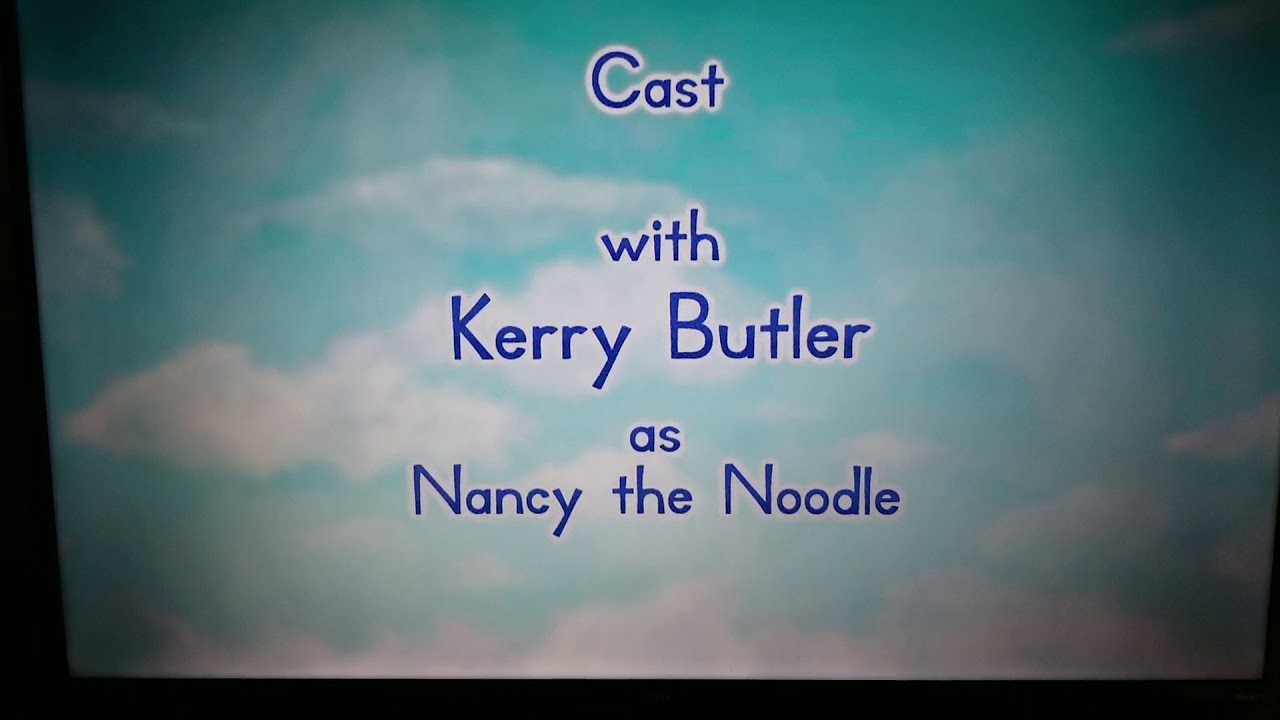
This image is the end credits of the Nick Jr. show, Wallykazam!. I want to know the name of this typeface, and not just download it, but I want to know, is this typeface custom or not? It looks a little similar to Primer Print, but cartoonish. This image was recorded on a TV, so it may not be in the best quality. Please, I want you to try to identify this typeface as carefully as you can. Very carefully. Thank you very much! ;-)